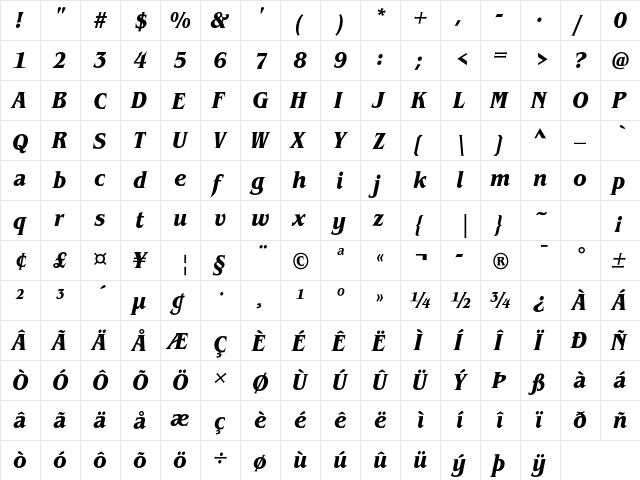
ITC Benguiat Std Bold Condensed Italic Font Preview
| Designer | Edward Benguiat |
Design Context for ITC Benguiat Std Typeface
ITC Benguiat Std is a composed and adaptable typeface that performs quietly and consistently across a wide range of design contexts. The slanted form adds forward momentum and visual energy. The heavy weight commands attention and anchors typographic hierarchies. The condensed width makes it efficient for tight spaces without sacrificing legibility.
Pro Tip: Try ITC Benguiat Std for annotation and caption copy alongside an upright companion — the contrast in angle creates a dynamic but ordered typographic system.